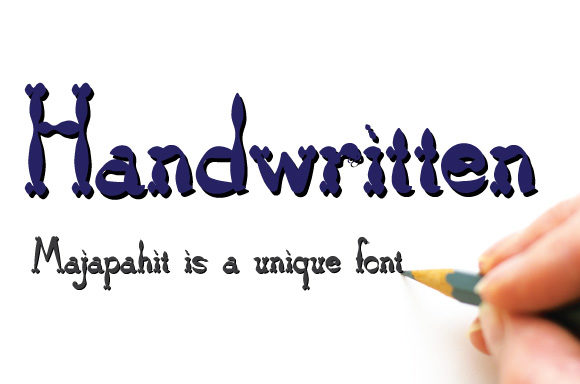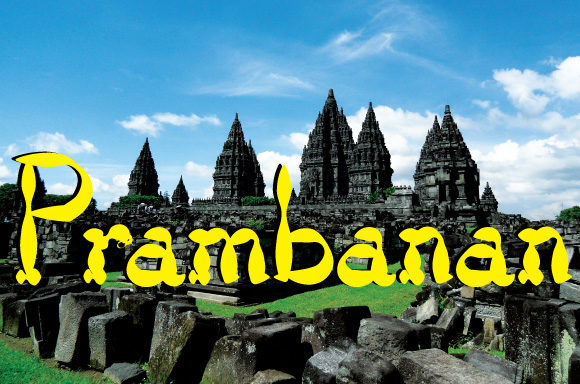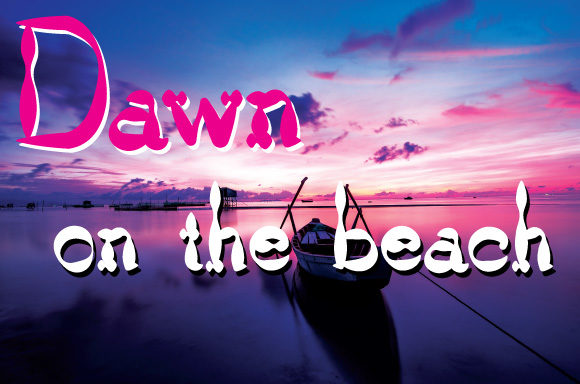
Introduction to Majapahit Font
Majapahit is an incredibly unique and interesting display font.
It is delicate yet bold, and as a result of its versatile style, this font will make each of your designs stand out .